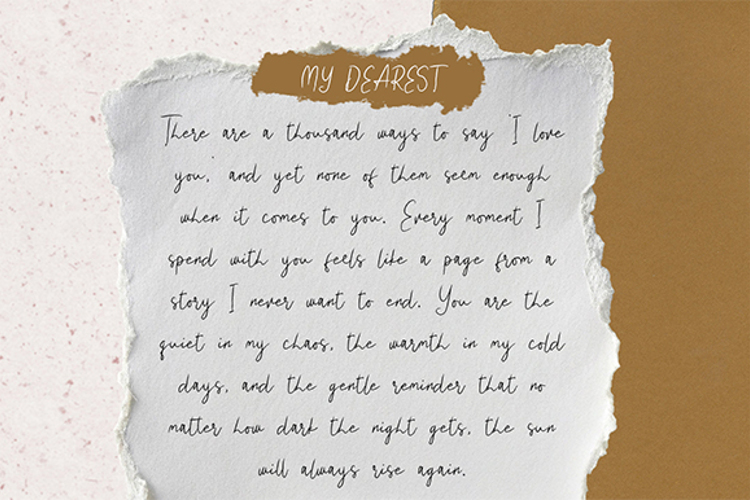
Weird is beautiful Font
A font that combines uniqueness and natural beauty, created with beautiful pencil strokes and is suitable for those of you who want a unique design.